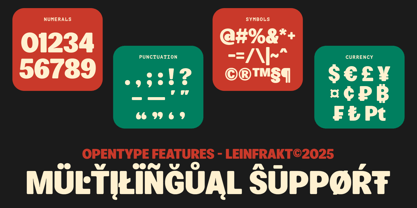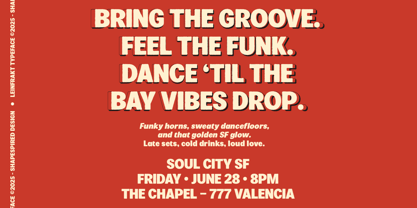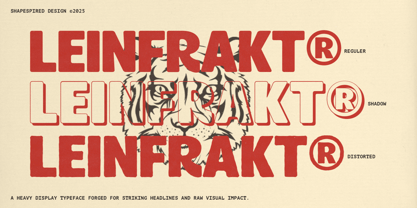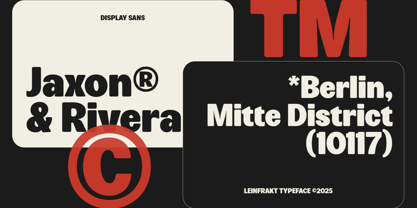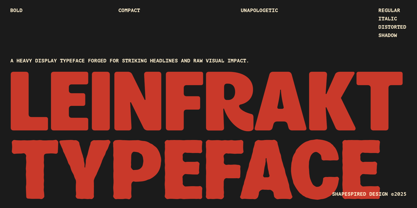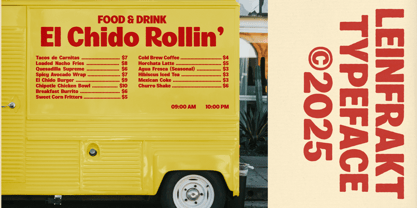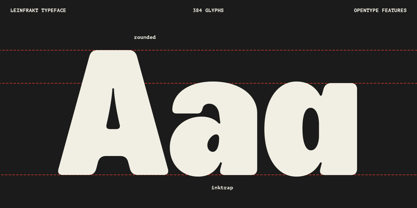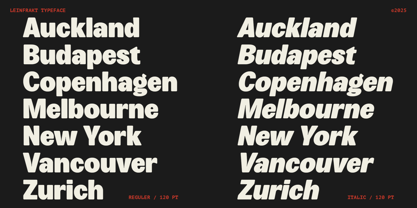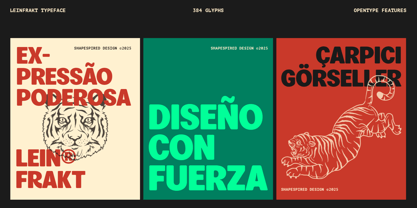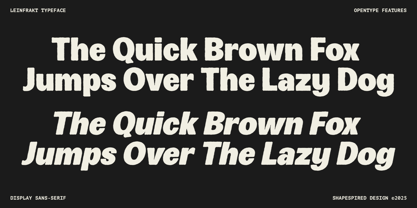
Leinfrakt
Bold. Compact. Unapologetic.
Leinfrakt is a heavy display typeface forged for striking headlines and raw visual impact. Its tight, punchy forms and aggressive posture make it ideal for poster design, music branding, editorial work, and experimental graphics.
Designed to stand out, Leinfrakt doesn’t whisper — it roars.
Font Features:
6 Styles: Regular, Italic, Distorted, Distorted Italic, Shadow, Shadow Italic
Character Set: 384 glyphs
Language Support: Latin Extended with OpenType multilingual features
Best For:
Posters & flyers
Music & nightlife branding
Indie publishing
Zines & protest graphics
Web & motion design with attitude